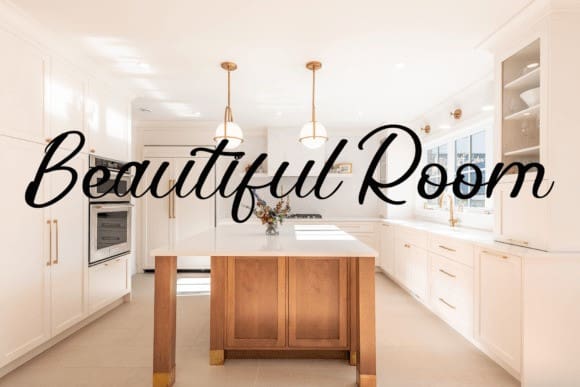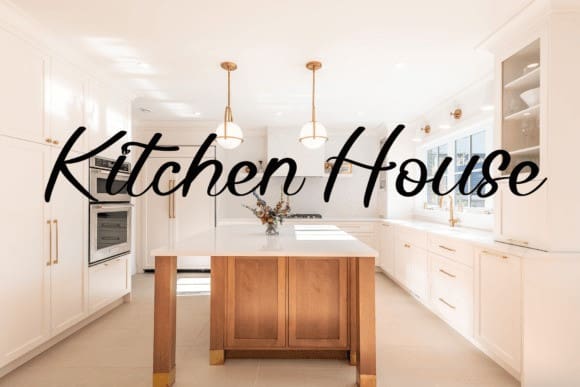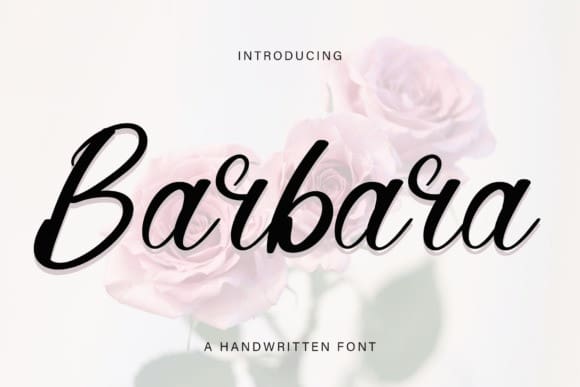
Barbara Script Typeface
Barbara Script Typeface, is a simple handwritten font. This versatile font has a wide spectrum of applications ranging from greeting cards to headlines and is guaranteed to add a simple and natural feel to your next project!